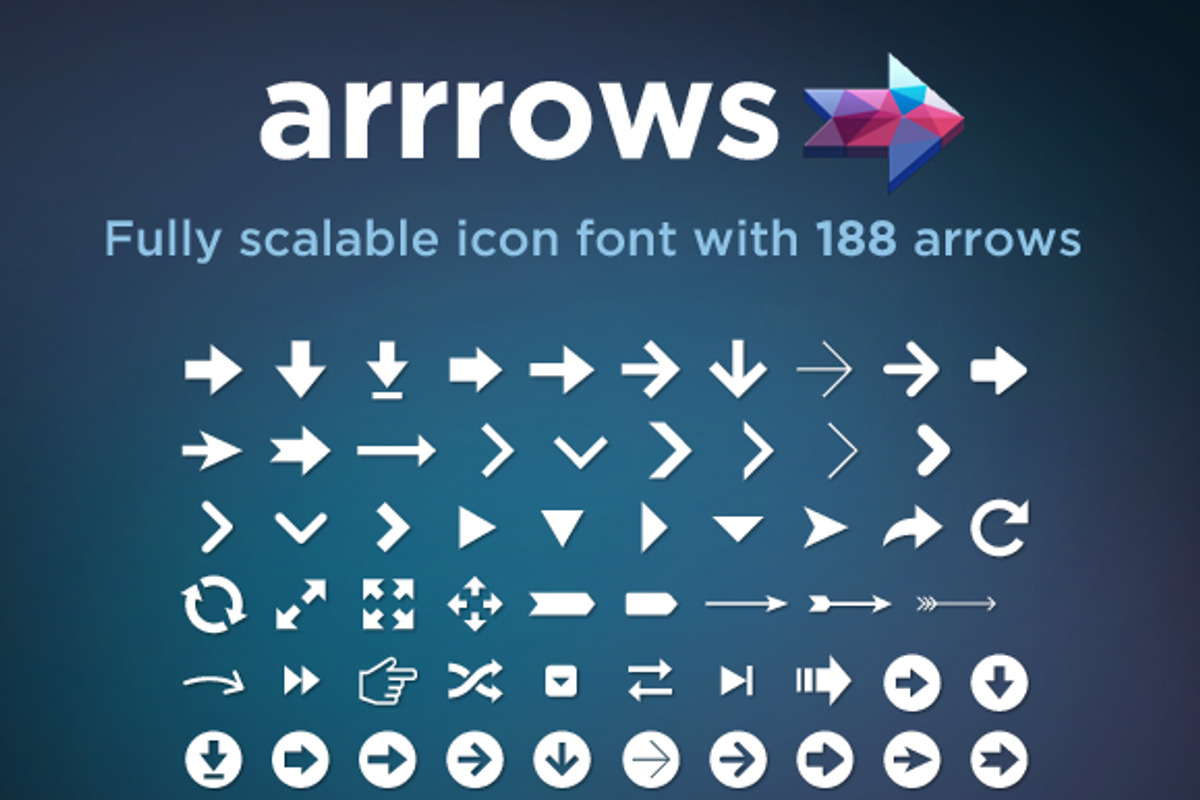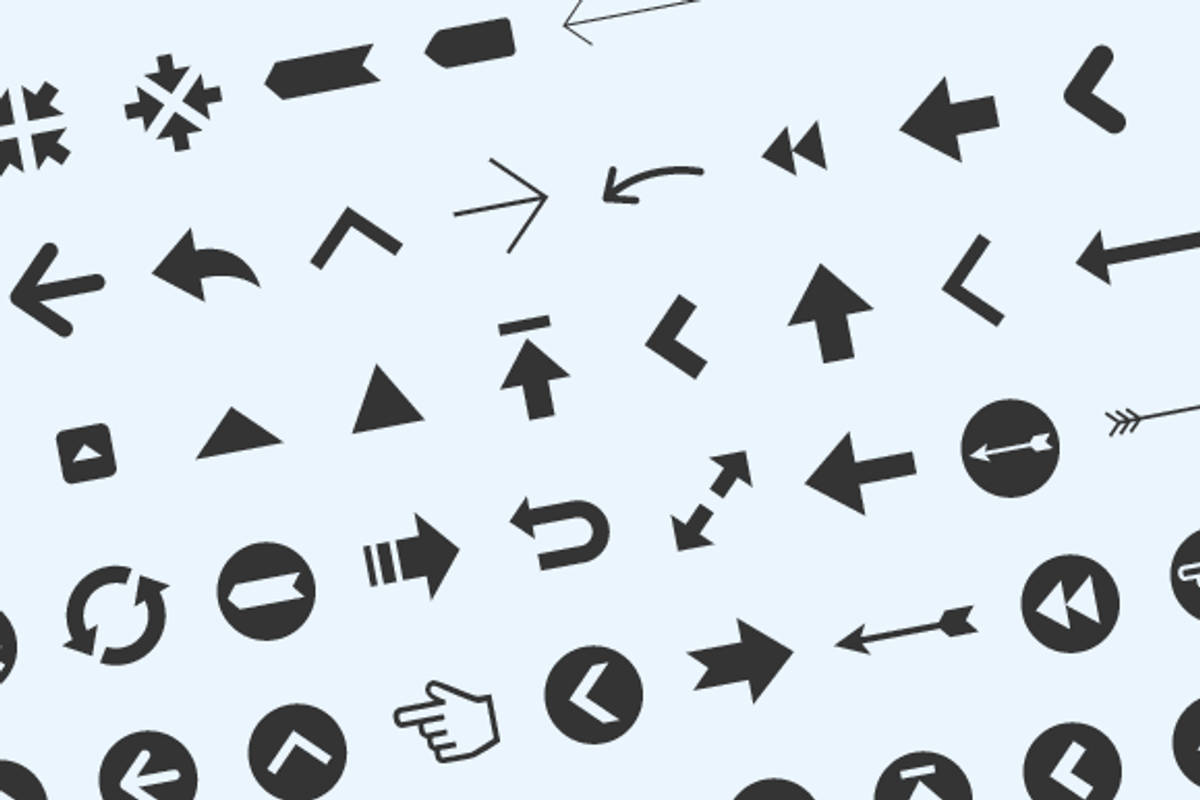
Arrrows Font
Arrrows Font by Digital Telepathy is a font selected for branding, posters, packaging, typography.
- Arrrows is an icon font that includes 188 custom designed arrow icons.
Why Arrrows Font is worth a look
Arrrows Font by Digital Telepathy fits naturally into Branding, posters, packaging, typography.